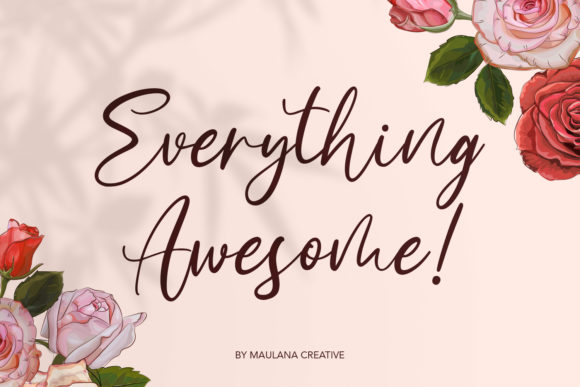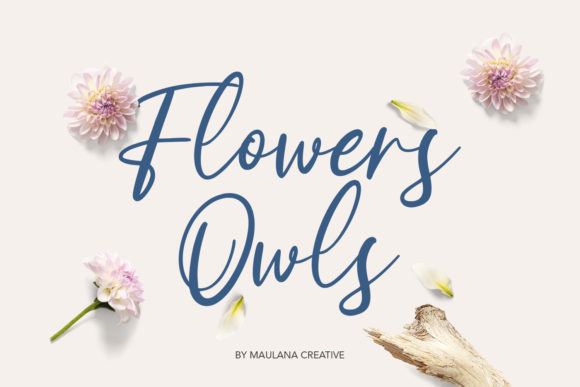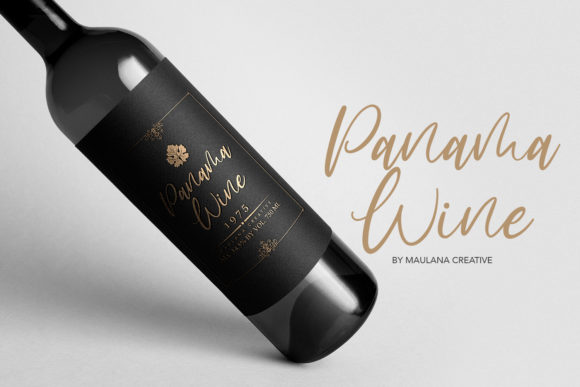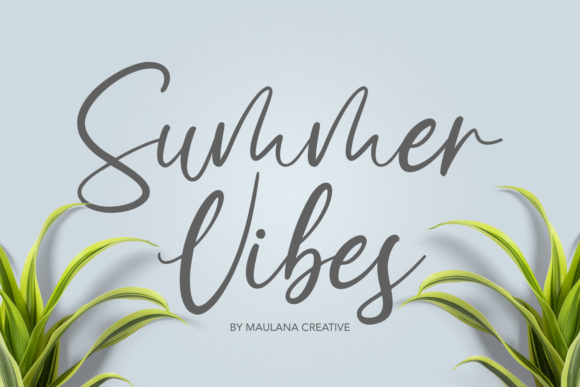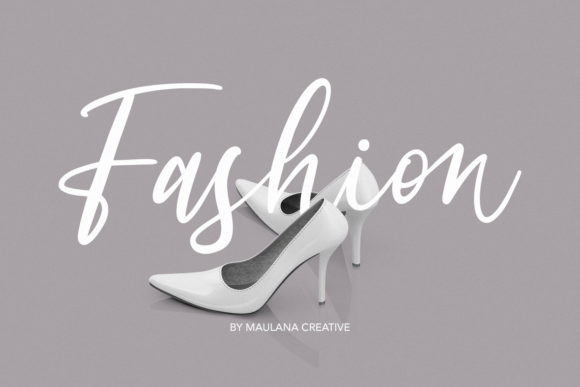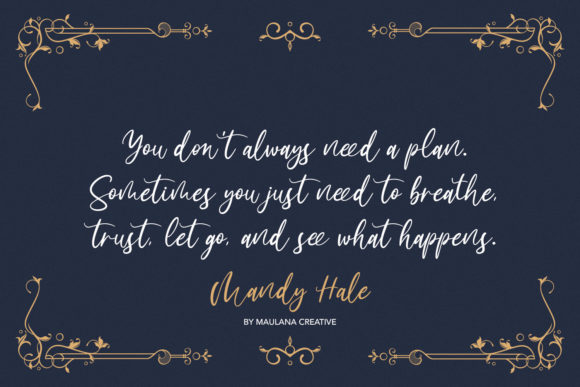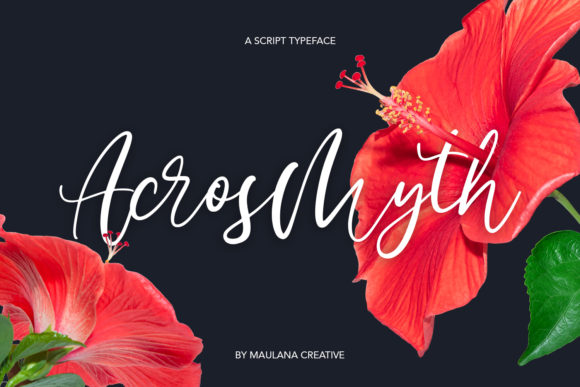
Discover the Elegance of Acrosmyth Font: A Perfect Choice for Designers and Crafters
Are you a designer or crafter looking for a font that exudes charm and elegance? Look no further than the Acrosmyth Font. This beautiful handwritten font is perfect for adding a touch of sophistication to any design project, from wedding invitations to business cards. In this article, we’ll take a closer look at the Acrosmyth Font and explore its features, uses, and benefits.
The Charm of Acrosmyth Font
Acrosmyth Font feels equally charming and elegant, making it an excellent choice for designers and crafters who want to add a personal touch to their work. Its stunning appearance is sure to impress, whether you’re creating wedding invitations, thank you cards, quotes, greeting cards, logos, or business cards. The font’s elegant and refined aesthetic makes it perfect for any design project that requires a handwritten touch.
Key Features of Acrosmyth Font
So, what makes Acrosmyth Font so special? Here are some of its key features:
- PUA Encoded: The Acrosmyth Font is PUA (Private Use Area) encoded, which means you can access all of the glyphs and swashes with ease. This feature makes it simple to use the font and customize your designs.
- Varying Baseline: The font features a varying baseline, which gives it a natural, handwritten look. This feature adds to the font’s charm and elegance, making it perfect for designs that require a personal touch.
- Smooth Lines: The Acrosmyth Font has smooth lines that add to its elegance and sophistication. The font’s smooth lines make it easy to read and visually appealing.
- Gorgeous Glyphs: The font comes with a range of gorgeous glyphs that you can use to customize your designs. These glyphs add an extra touch of elegance to your work and make it stand out.
- Stunning Alternates: The Acrosmyth Font also features stunning alternates that give you even more options for customizing your designs. These alternates allow you to create unique and eye-catching designs that showcase your creativity.
Uses of Acrosmyth Font
The Acrosmyth Font is a versatile font that can be used for a wide range of design projects. Here are some of the most popular uses of the font:
- Wedding Invitations: The font’s elegant and refined aesthetic makes it perfect for wedding invitations. You can use it to create beautiful and sophisticated invitations that set the tone for the big day.
- Thank You Cards: The Acrosmyth Font is also great for creating thank you cards. Its charming and elegant appearance makes it perfect for expressing gratitude and appreciation.
- Quotes: The font’s smooth lines and gorgeous glyphs make it ideal for creating quotes. You can use it to add a touch of elegance to your quotes and make them stand out.
- Greeting Cards: The Acrosmyth Font is perfect for creating greeting cards for special occasions such as birthdays, anniversaries, and holidays.
- Logos: The font’s unique and elegant aesthetic makes it suitable for creating logos for businesses and brands.
- Business Cards: The Acrosmyth Font is also great for creating business cards. Its professional and refined appearance makes it perfect for entrepreneurs and small business owners who want to make a good impression.
Benefits of Using Acrosmyth Font
So, why should you choose the Acrosmyth Font for your design projects? Here are some of the benefits of using the font:
- Elegance and Sophistication: The font’s elegant and refined aesthetic adds a touch of sophistication to any design project.
- Customization: The font’s PUA encoding and range of glyphs and swashes make it easy to customize your designs and make them unique.
- Versatility: The Acrosmyth Font can be used for a wide range of design projects, from wedding invitations to business cards.
- Easy to Read: The font’s smooth lines and clear lettering make it easy to read, even at small sizes.
In conclusion, the Acrosmyth Font is a beautiful and elegant handwritten font that is perfect for designers and crafters who want to add a touch of sophistication to their work. Its charming and refined aesthetic, combined with its range of features and uses, make it an excellent choice for any design project. Whether you’re creating wedding invitations, thank you cards, quotes, greeting cards, logos, or business cards, the Acrosmyth Font is sure to impress.